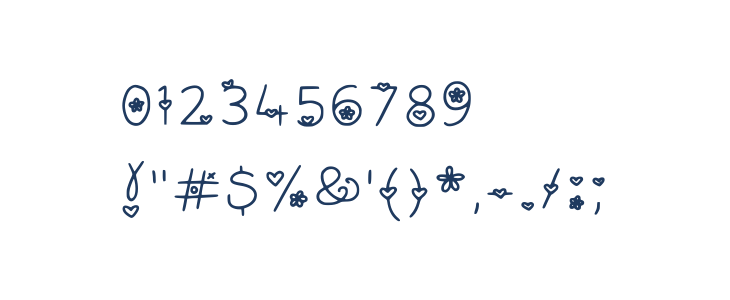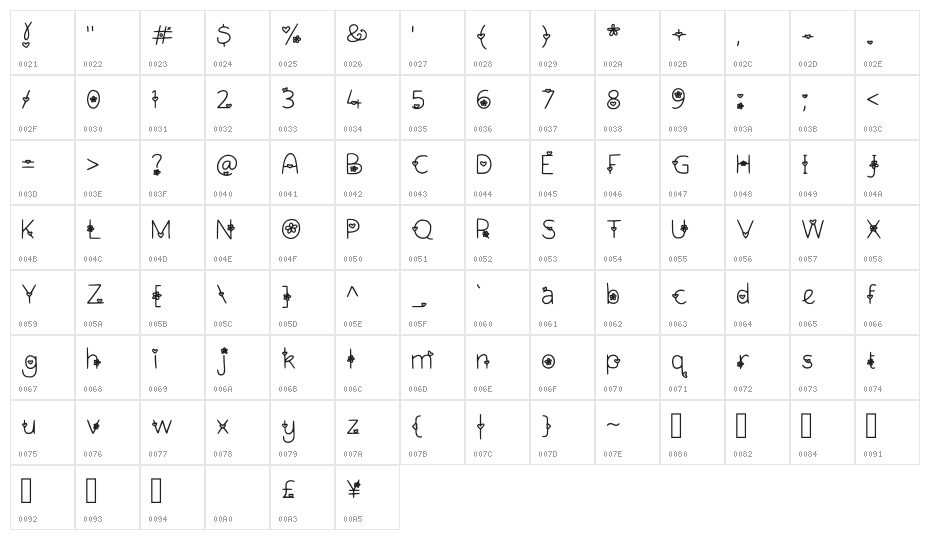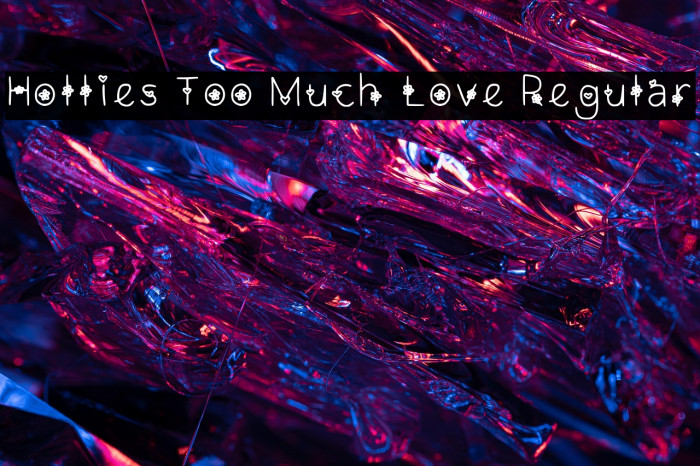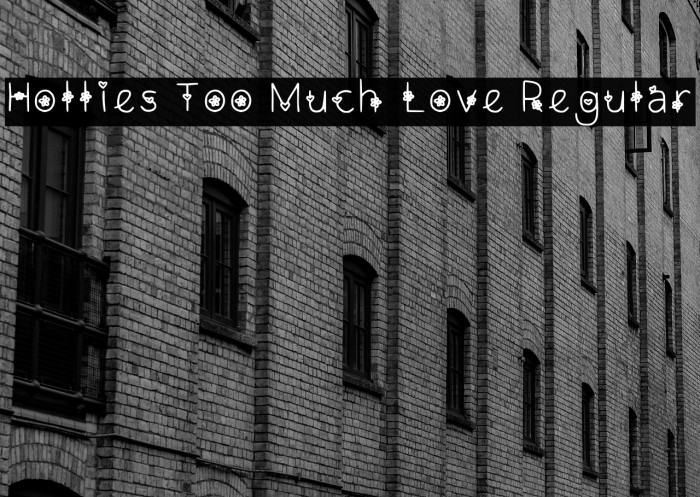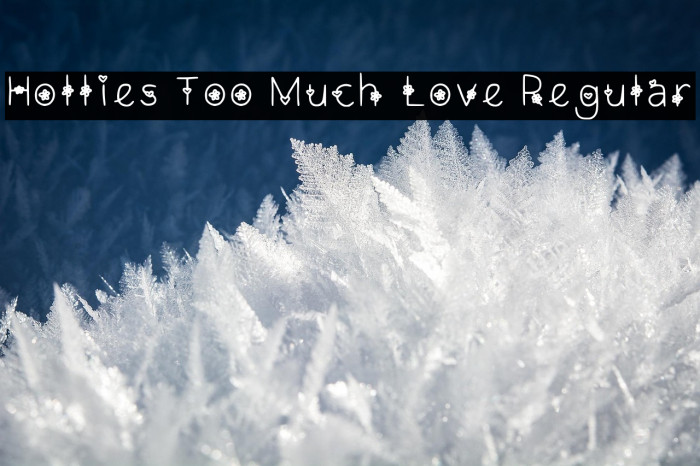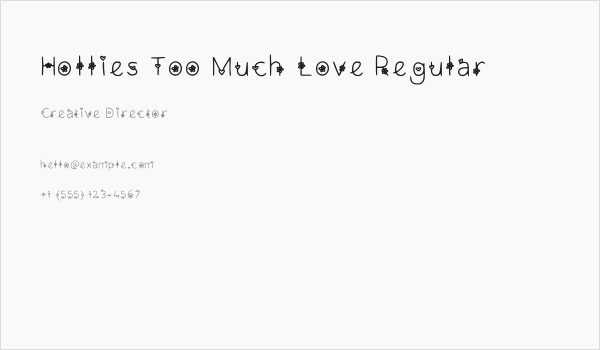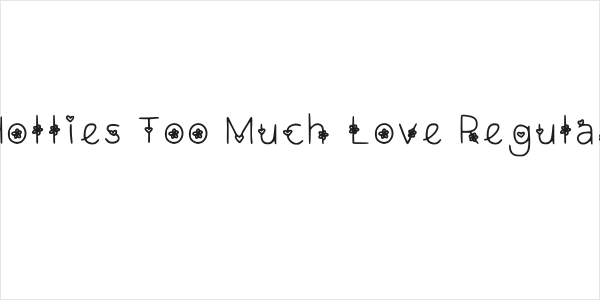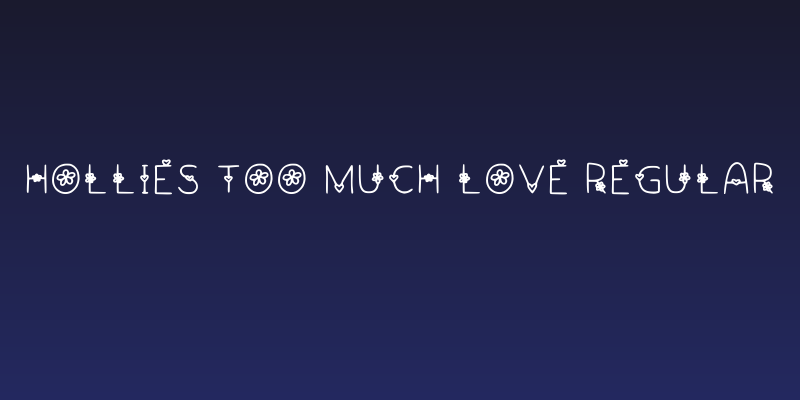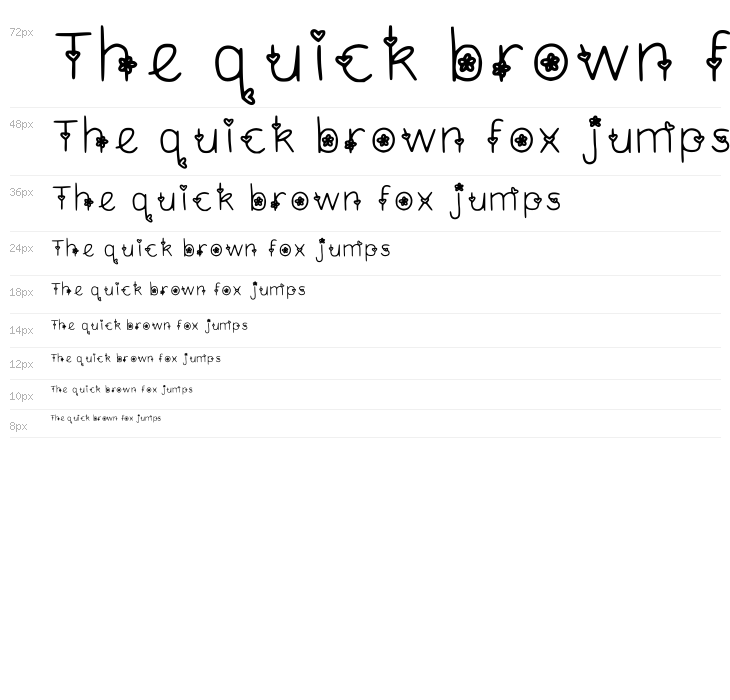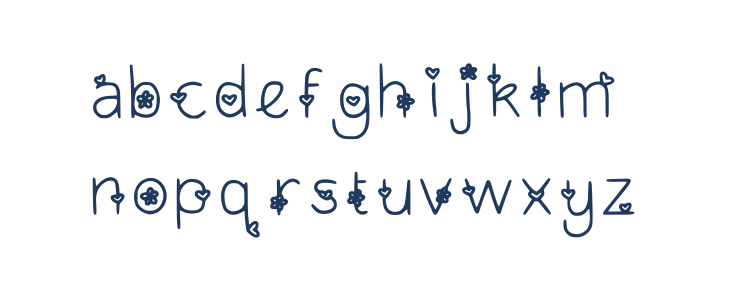
Hollies Too Much Love Regular Font
Hollies Too Much Love Regular Description
This playful and whimsical font features a unique design with decorative elements such as hearts and flowers integrated into the characters. The letters have a hand-drawn, casual feel, with each character exhibiting a distinct personality. The uppercase and lowercase letters maintain a consistent style, while numbers and special characters are adorned with similar embellishments, adding to the font's charm. The overall appearance is light-hearted and fun, making it suitable for creative and informal projects.